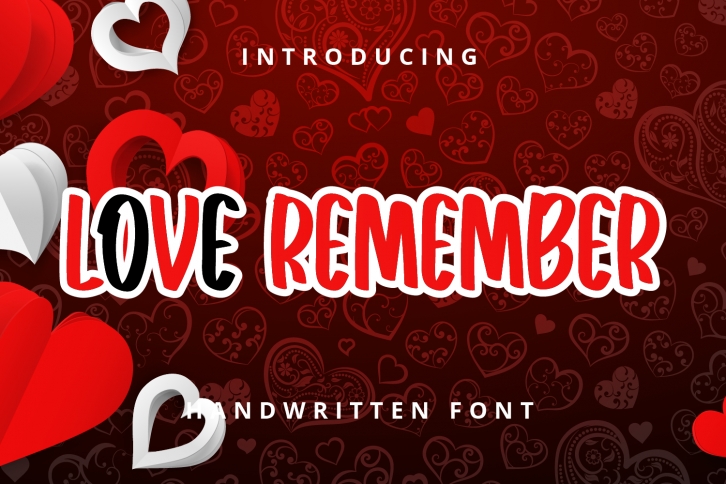
Love Remember is a simple, quirky and adaptable handwritten font. Its informal style and casual vibe will make this font a go-to choice for each of the creations that require a relaxed touch.